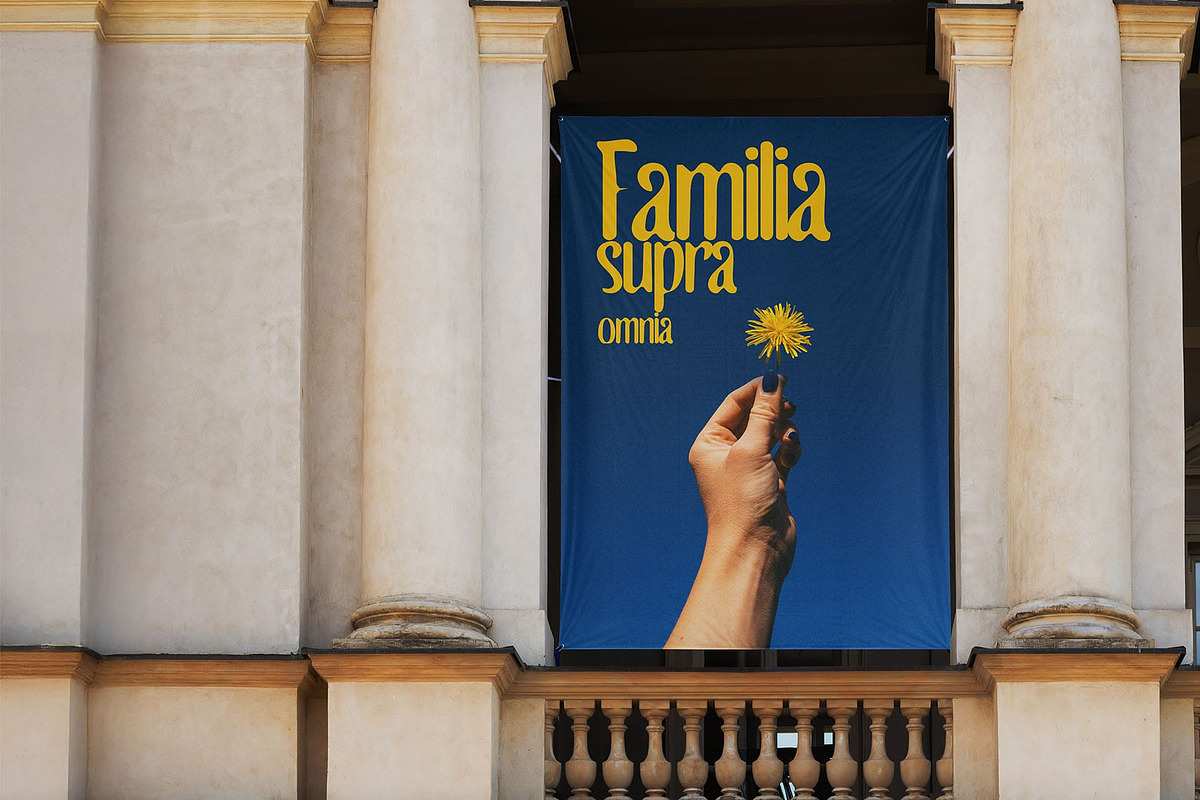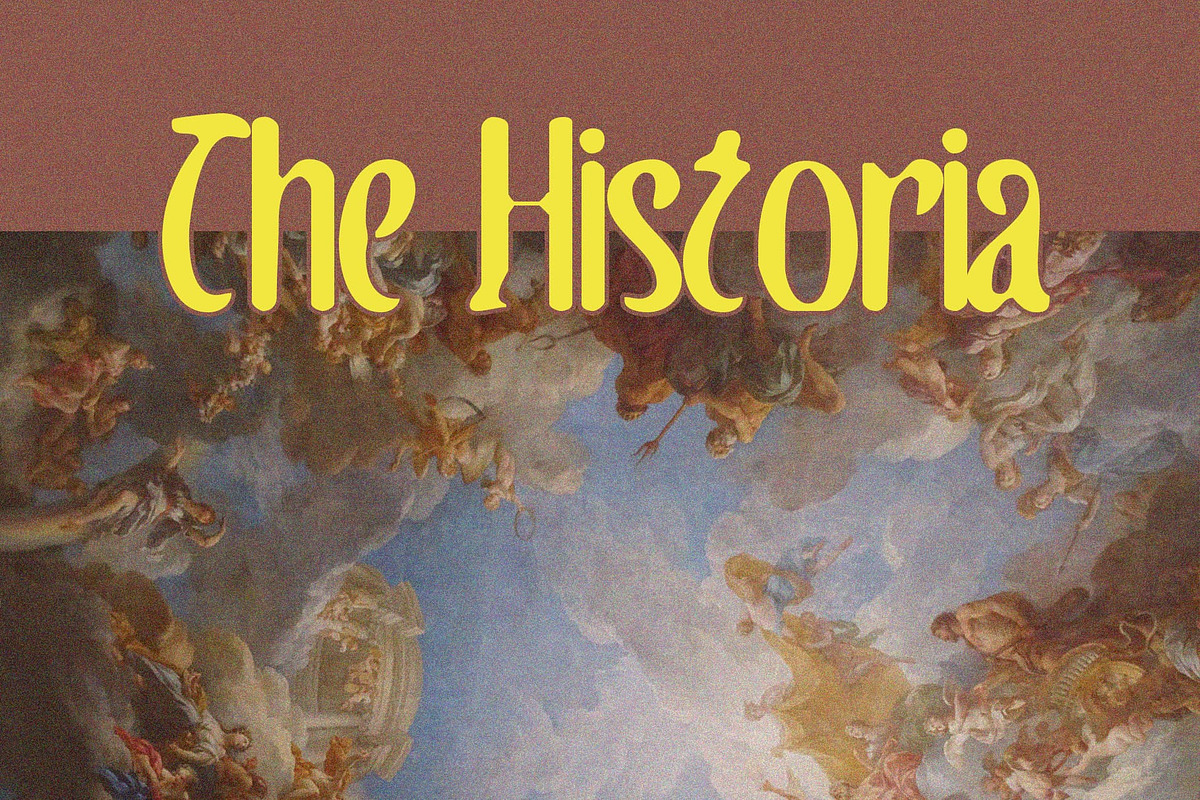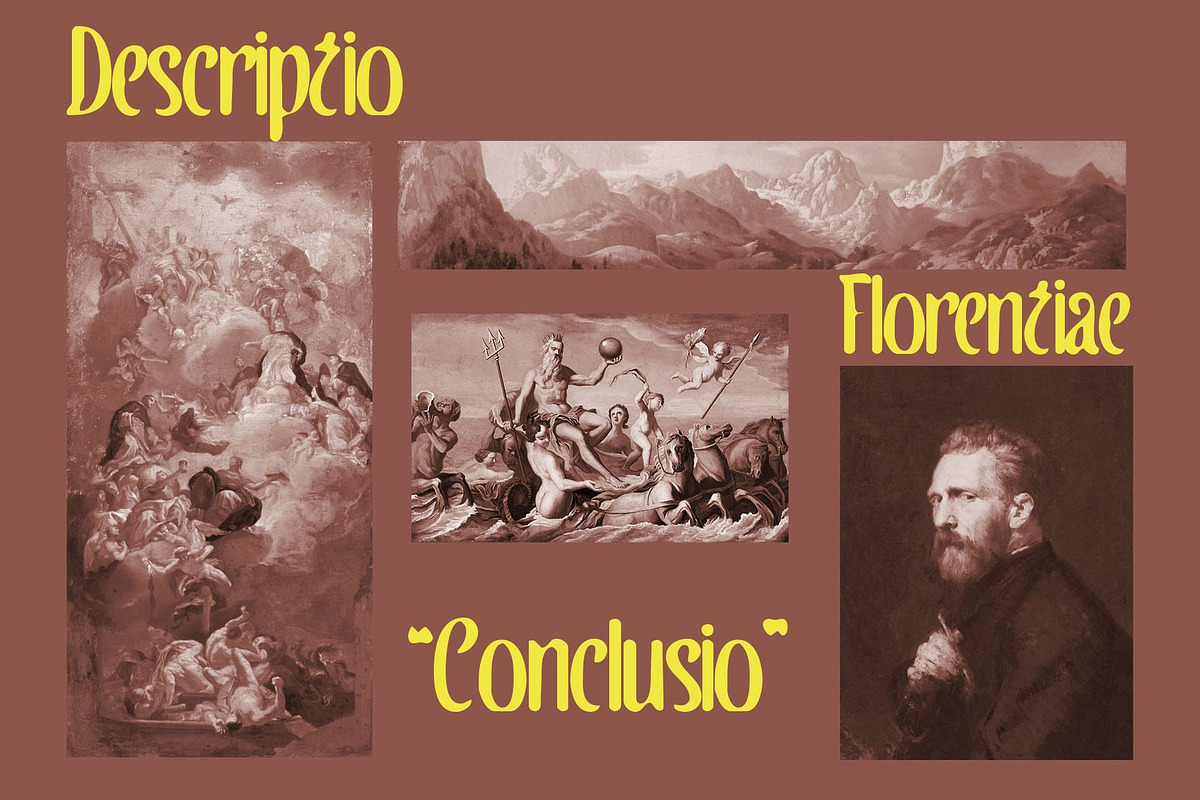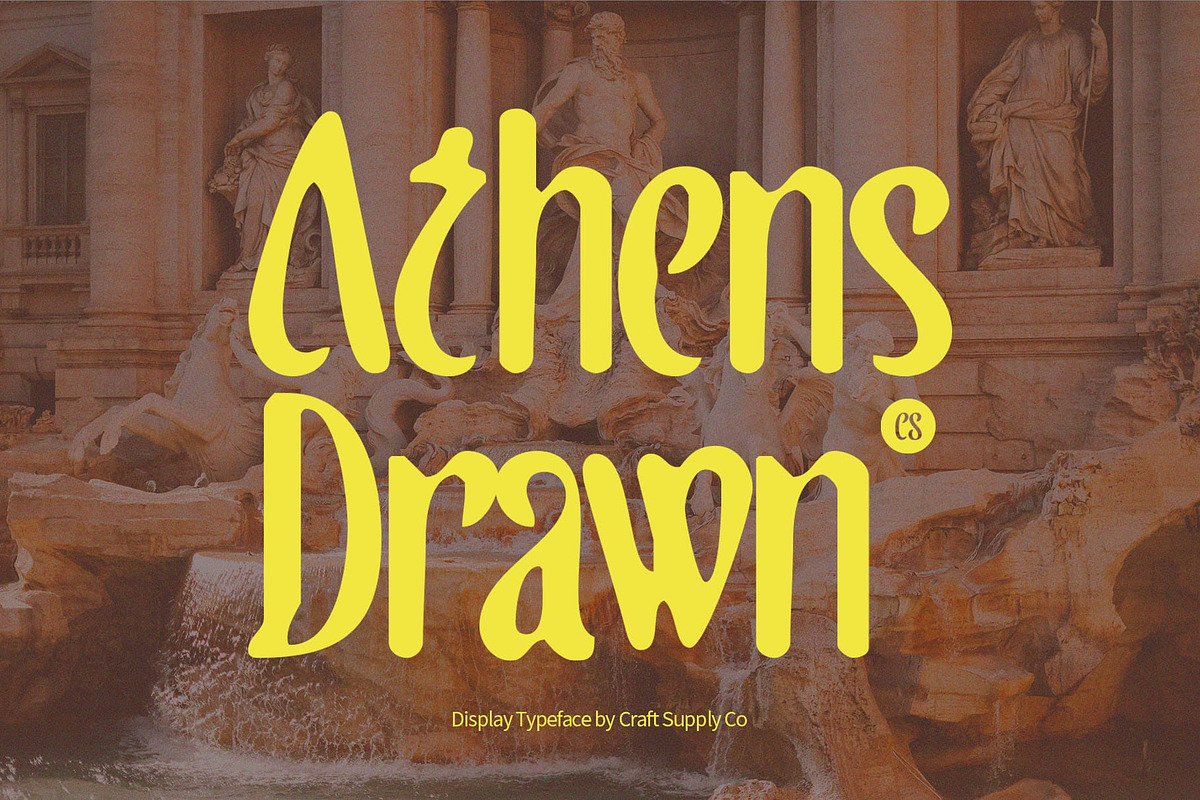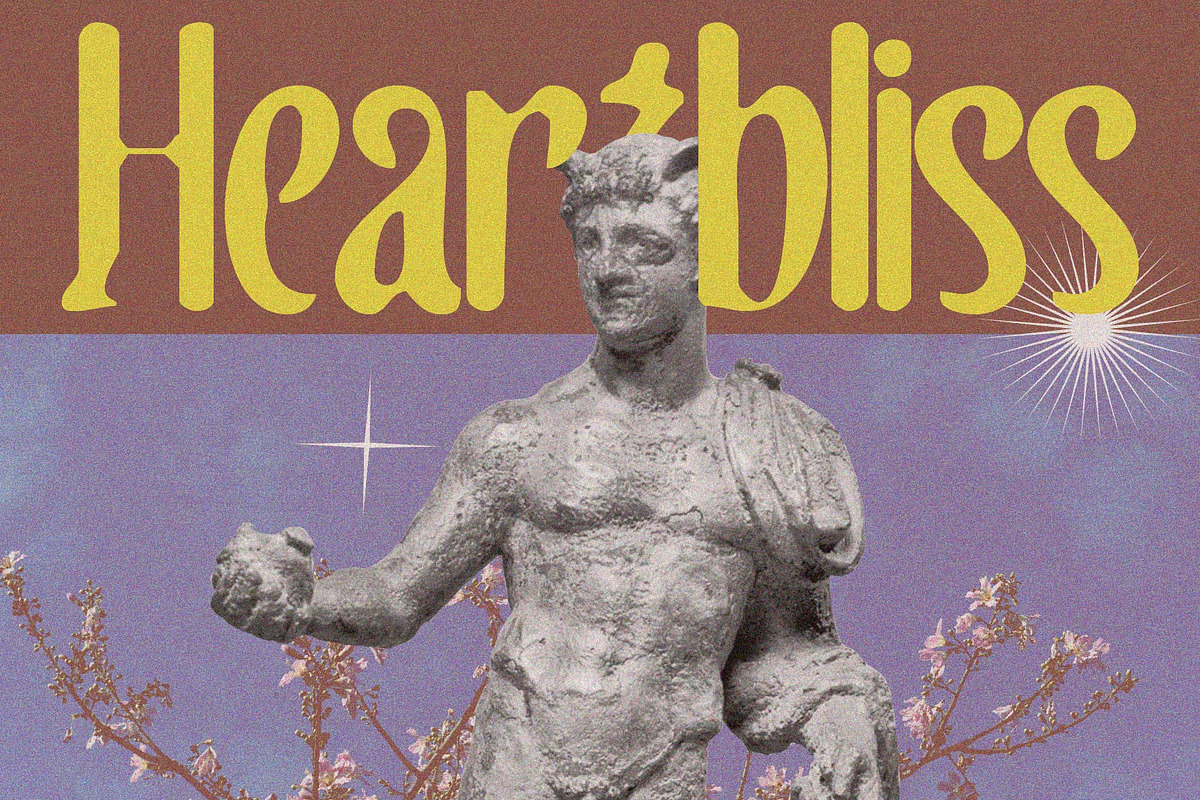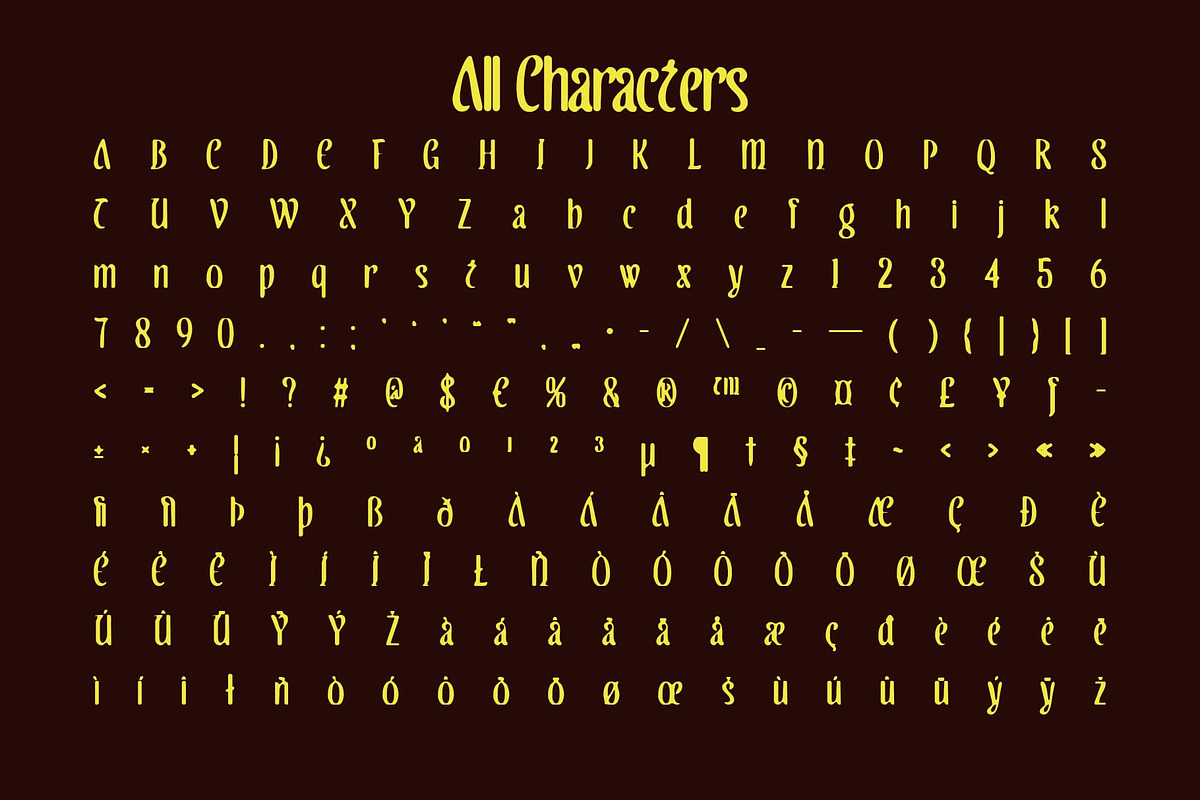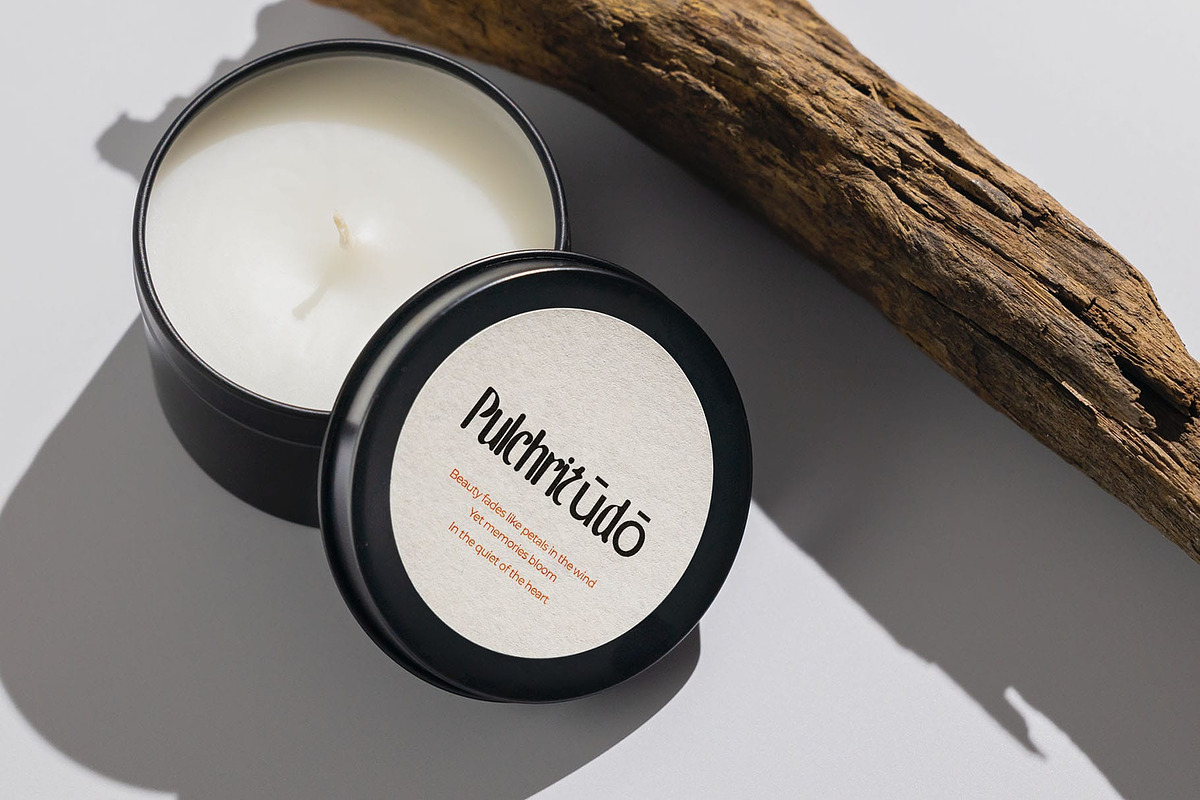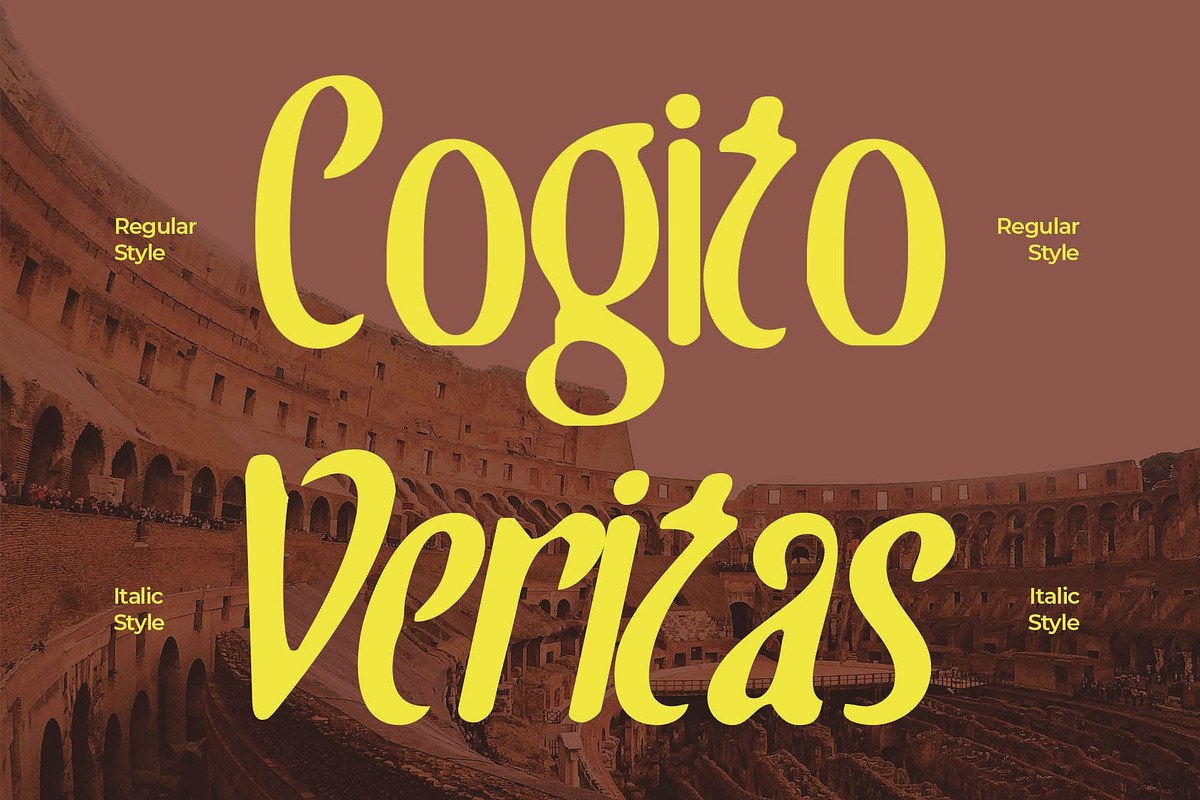
CS Athens Drawn
CS Athens Drawn – Uncial Font with Historic Charm
Uncial Font with Rounded Historic Letterforms
Ancient Inspiration with a Modern Touch CS Athens Drawn is an uncial font inspired by the beauty of ancient manuscripts and calligraphic traditions. Its rounded historic letterforms echo the timeless scripts found in early cultural texts, bringing a sense of heritage and depth to any design. While it carries a strong historical influence, the hand-drawn texture gives it a modern relevance, making it suitable for today’s creative projects.
Expressive Drawn Texture What sets this fonts apart is its drawn texture, which adds a handcrafted feel to every letter. This detail enhances its authenticity, giving designs a tactile, expressive quality. Each stroke feels intentional and organic, making the font perfect for projects that demand a human touch rather than a purely digital look.
Perfect for Cultural and Creative Projects From museum exhibitions and historical branding to book covers, posters, and artistic campaigns, this fonts delivers a unique blend of tradition and creativity. Its uncial style captures the essence of old-world charm, while the drawn effect infuses a playful, engaging vibe. Whether you’re working on cultural preservation, festival graphics, or editorial layouts, this font makes a striking statement.
Timeless Versatility This fonts is not limited to historical themes—it adapts beautifully across different contexts. Use it in logos, event titles, or branding materials where you want to evoke authenticity and sophistication. The balance between classic uncial curves and textured, drawn aesthetics ensures your design stands out with originality and cultural resonance.